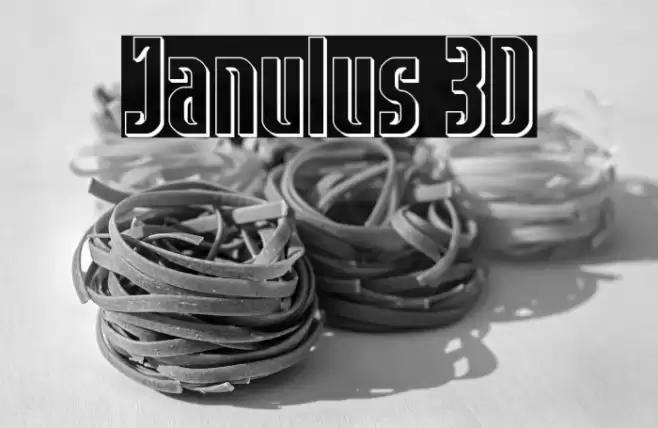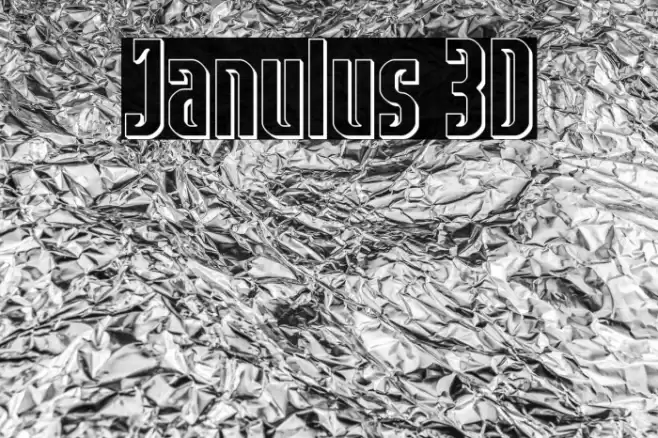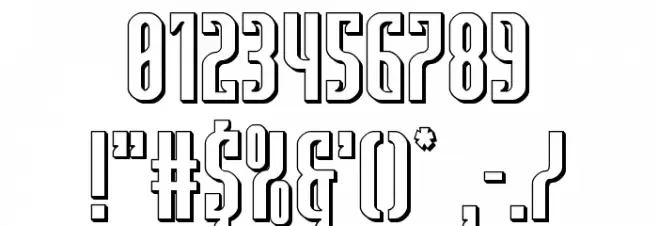
Janulus 3D Font
Janulus 3D Description
This font features a bold, three-dimensional appearance with a distinct shadow effect that gives each character a sense of depth and volume. The uppercase and lowercase letters maintain a consistent geometric structure, with sharp angles and clean lines that create a modern and futuristic look. The numerals and special characters are designed to match the overall aesthetic, ensuring a cohesive visual style across all elements. The font's unique 3D effect makes it stand out, making it ideal for eye-catching designs.
A bold, 3D font with a modern, geometric style and shadow effect from Uncategorized fonts.
- Proposed Projects: Ideal for poster designs, video game graphics, futuristic branding, and any project requiring a standout, modern typeface.